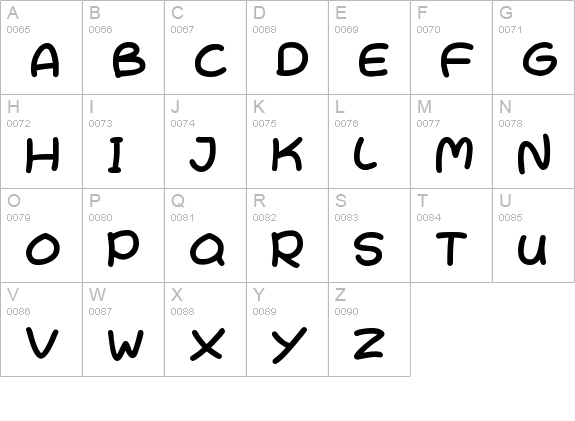
Cutesy Kisses Font Details
Cutesy Kisses is a free for personal use font in the Script > Handwritten category, designed by Darrell Flood. It has been downloaded 53 times and is available for Windows, Mac and Linux.
Cutesy Kisses font is a delightful and whimsical typeface that will add a touch of charm to any project. With its playful curves and adorable details, this font is perfect for creating cute and inviting designs. Whether you're working on a greeting card, invitation, or branding project, Cutesy Kisses will bring a sweet and lovable vibe to your work.